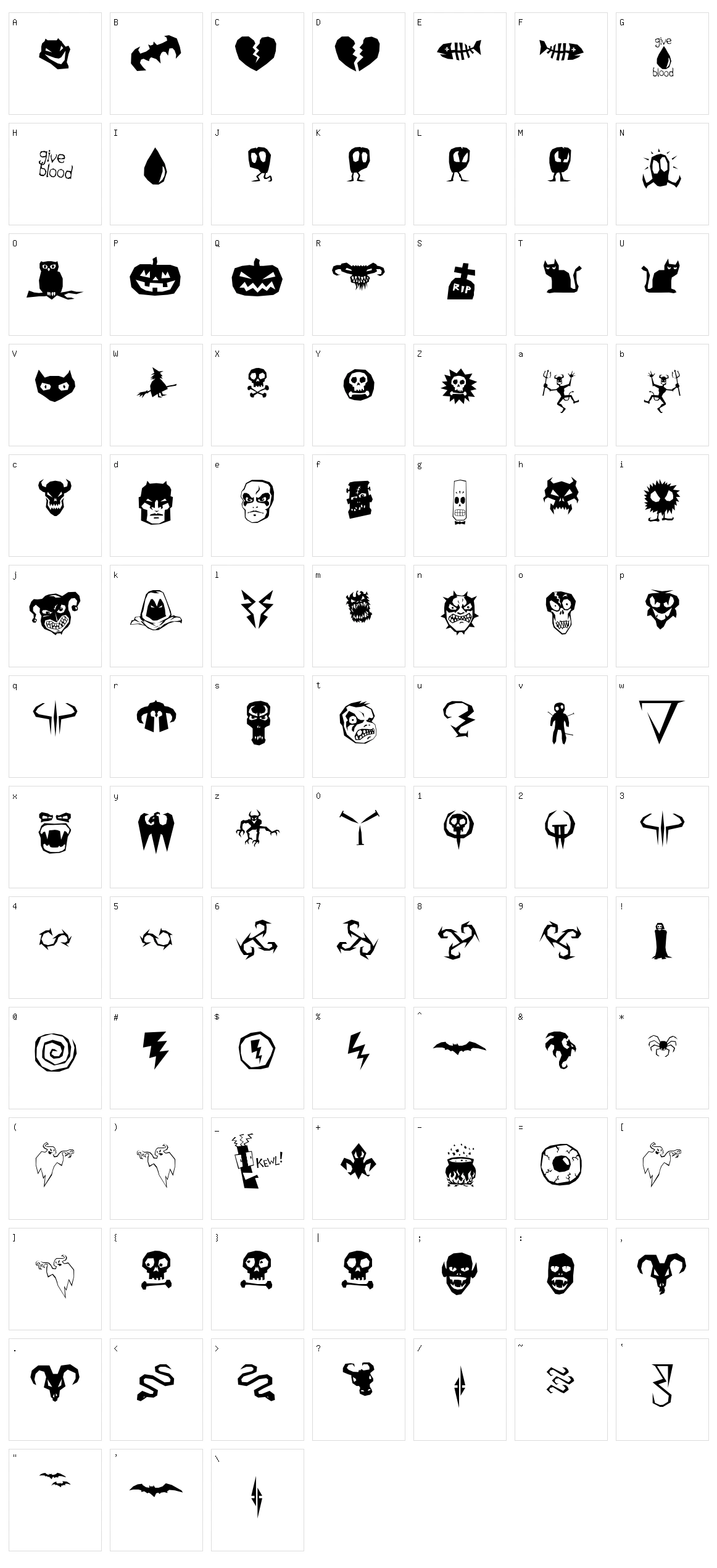
The free font Ill October 98 is carefully designed by Hybrid Space, showcasing a thoughtful balance of creativity and usability and falls under the Halloween font style. When you download the ZIP file, it contains only 31.21 KB of font files, making it lightweight and quick to download. Please review the license details below to understand permitted usage and distribution rights. If license information is not available, we recommend using this font for personal projects only or contacting the author directly for commercial usage permissions.